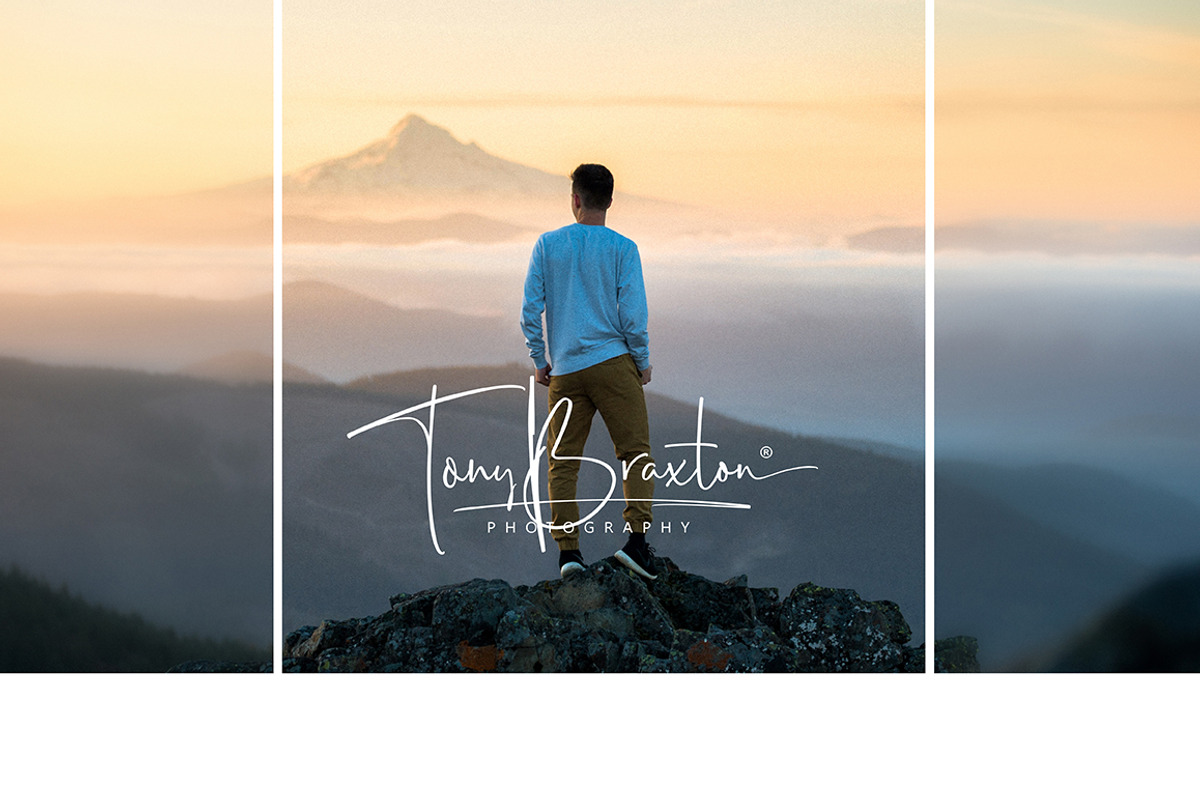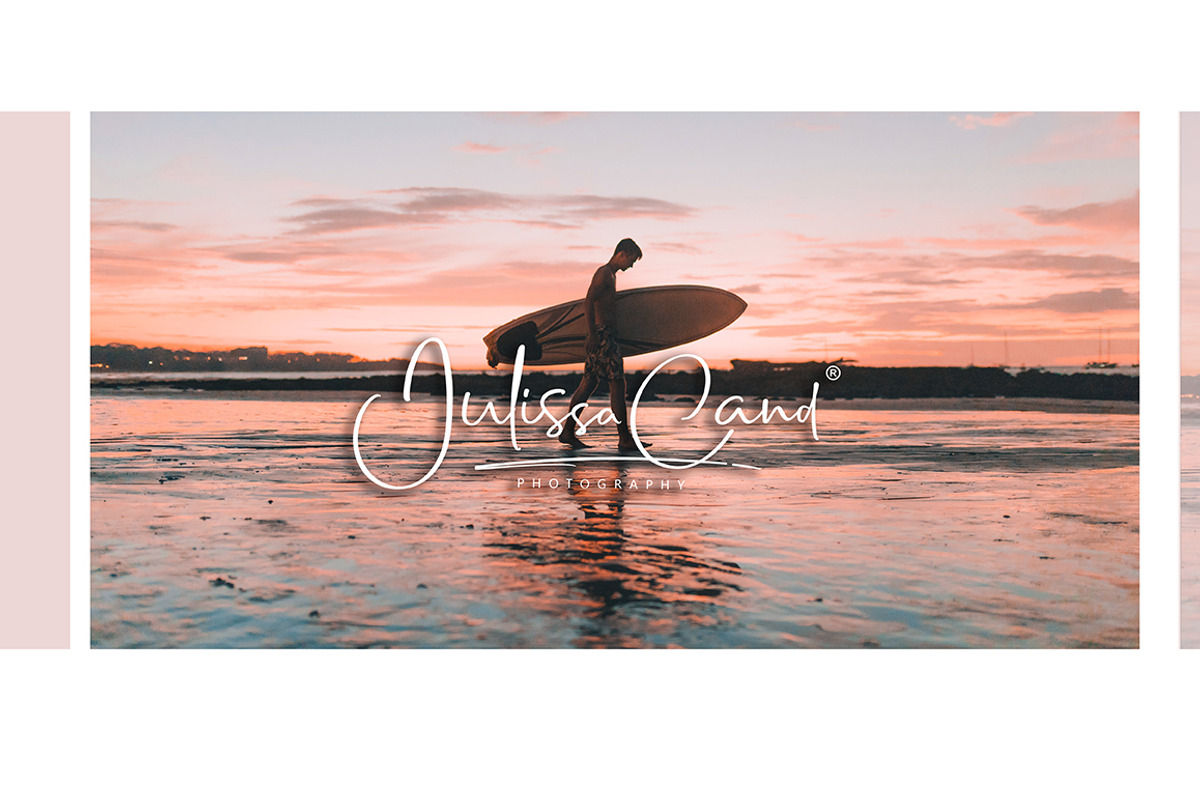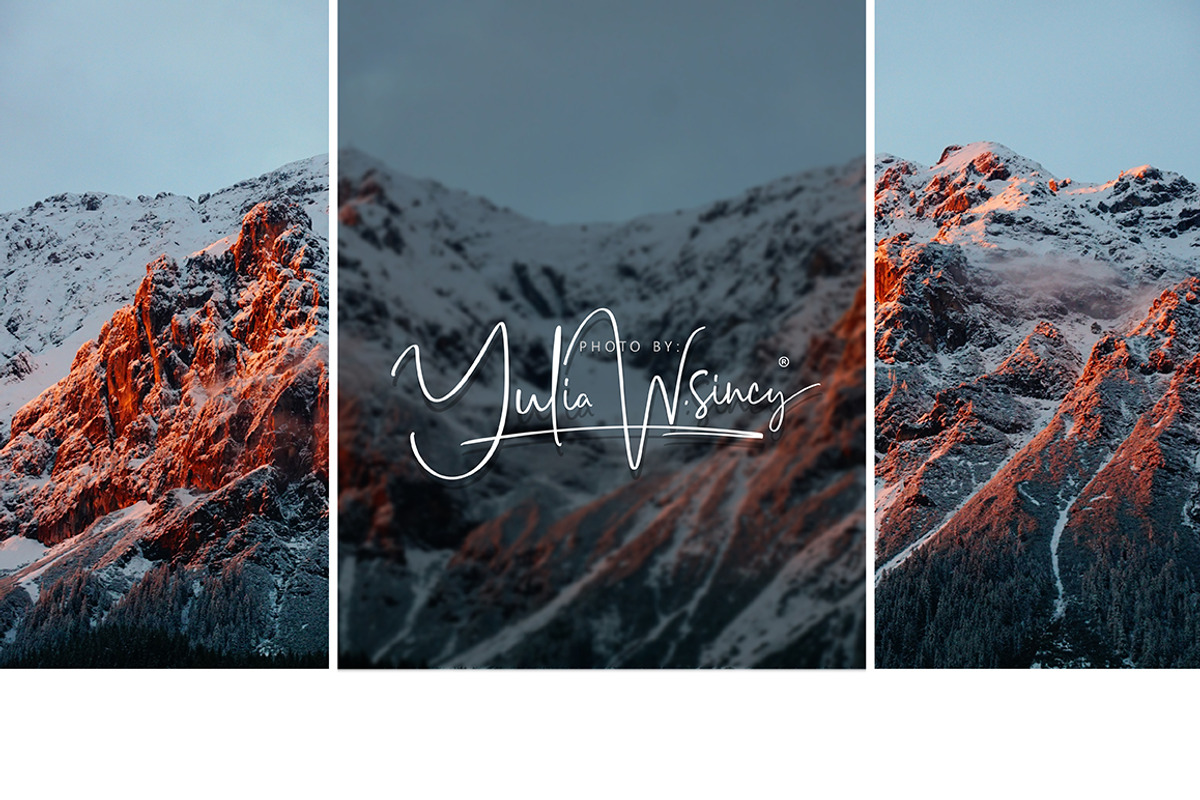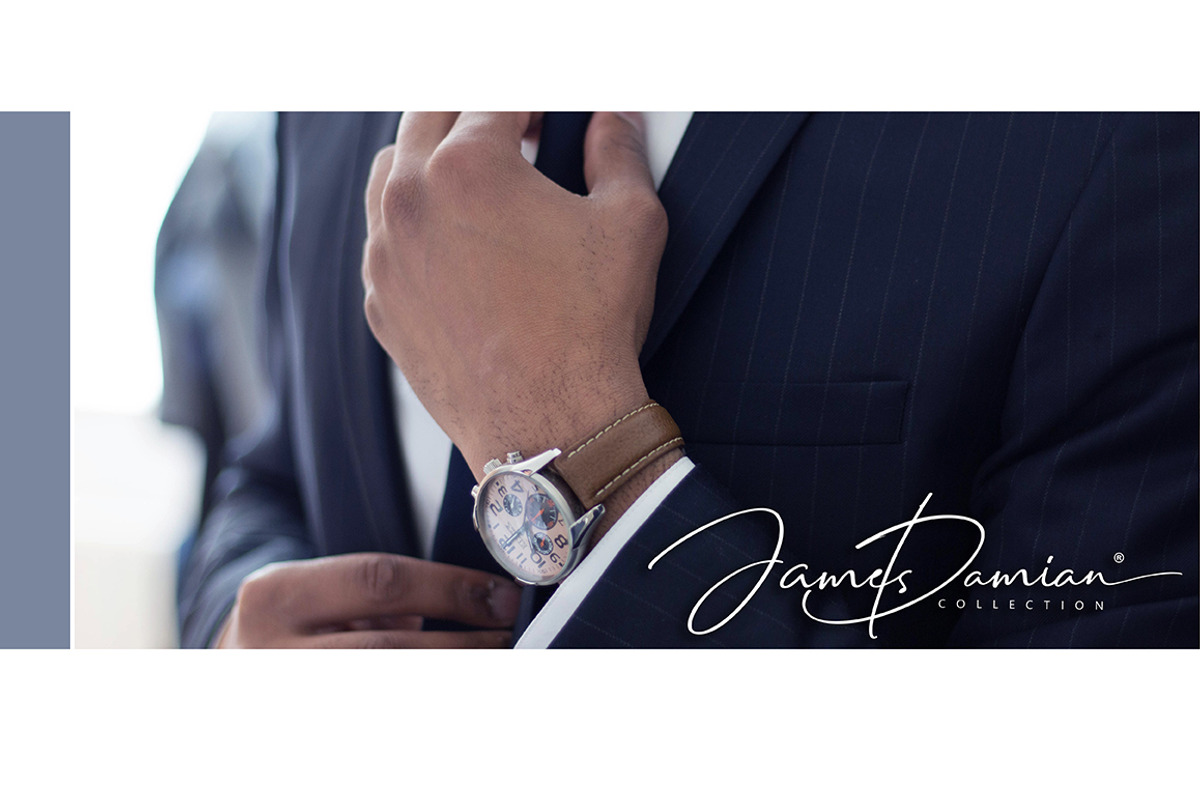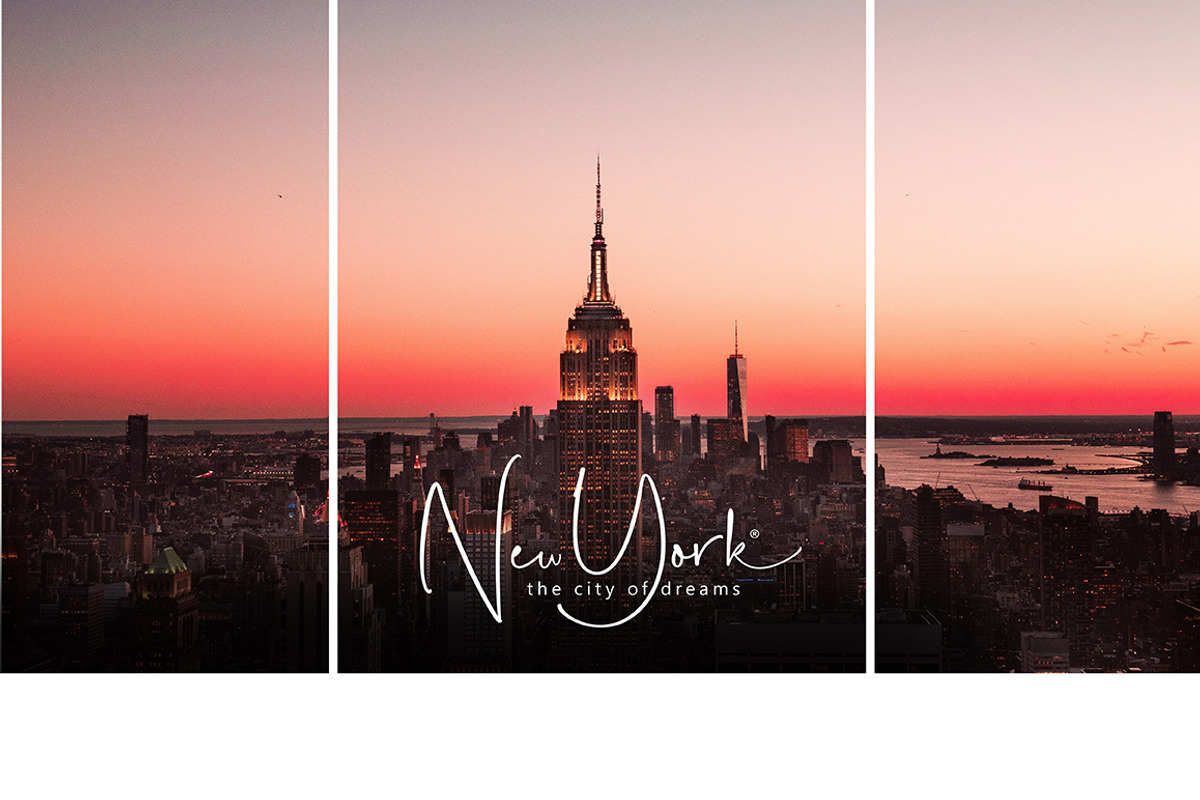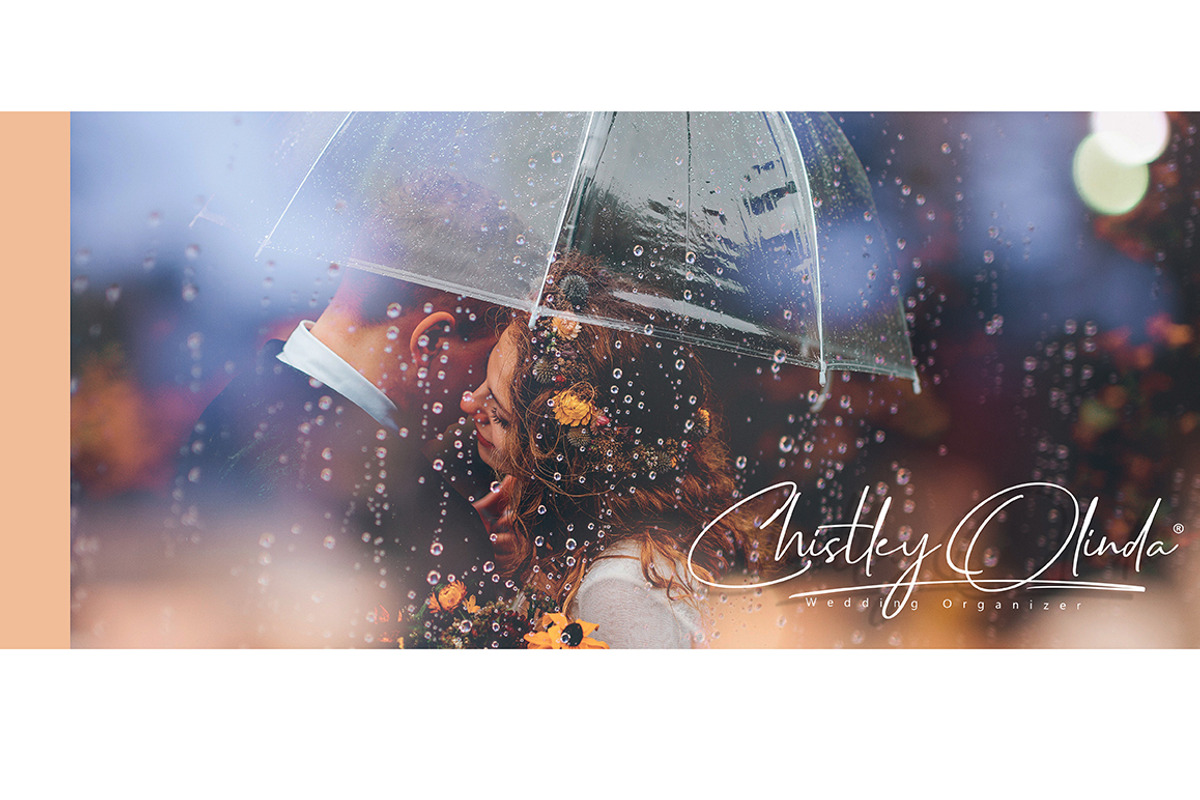
Alessa Beilaire Deluxe Edition
Hi .... According to our followers request to make a signature font again , we made this font. Alessa Beilaire Deluxe Edition font is a simple and classy font, comes with 3 Elegant Variations, opentype features such as stylistic alternates,initial and final form, and ligatures. We keep this font looks elegant, classy, readable, stylish, catchy and easy to use. Alessa Beilaire Deluxe Edition Font is the great choice for watermark on photography, signature or signature logo design, quotes, album cover, business card, and many other design project. From business cards to photo watermarks, Alessa Beilaire Deluxe Edition is here to elevate your work to the highest level.